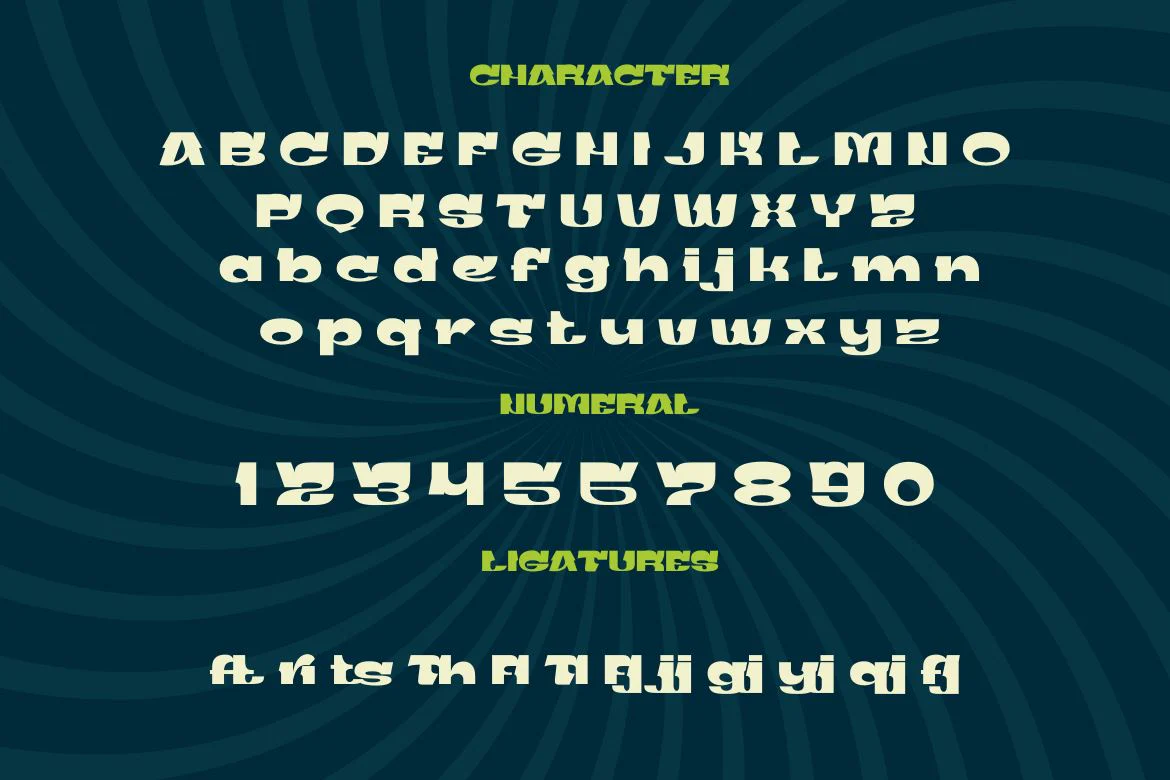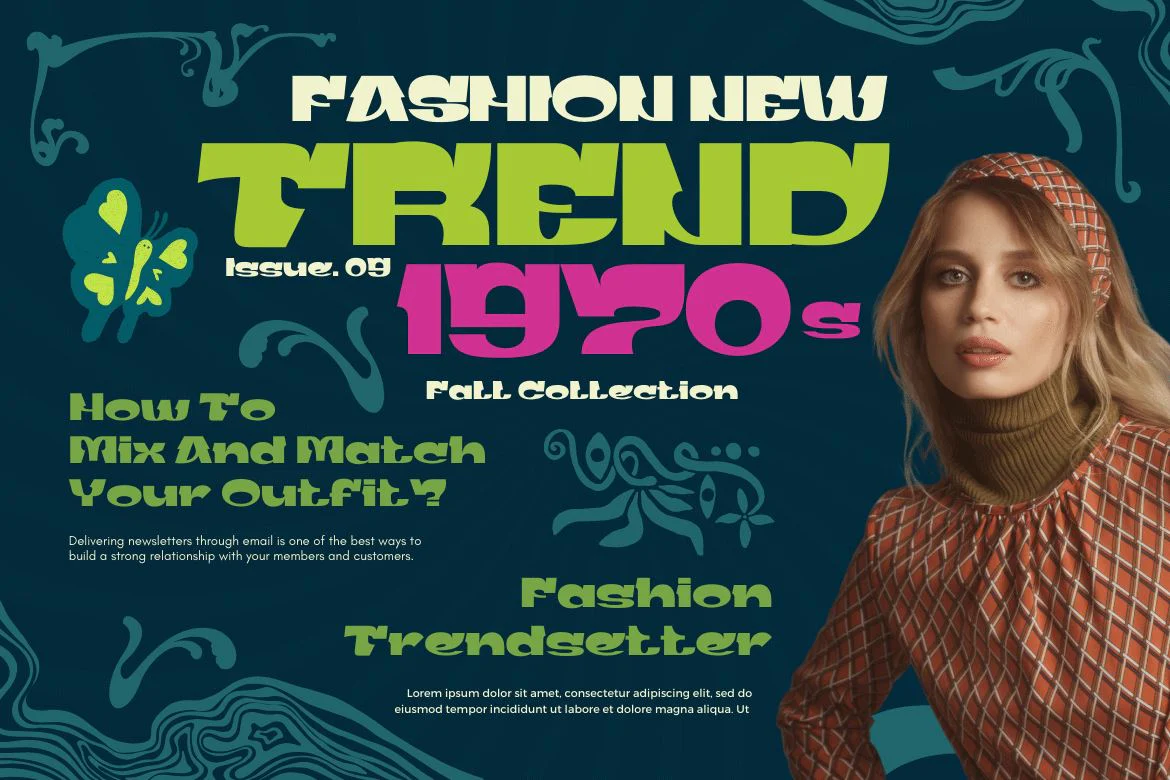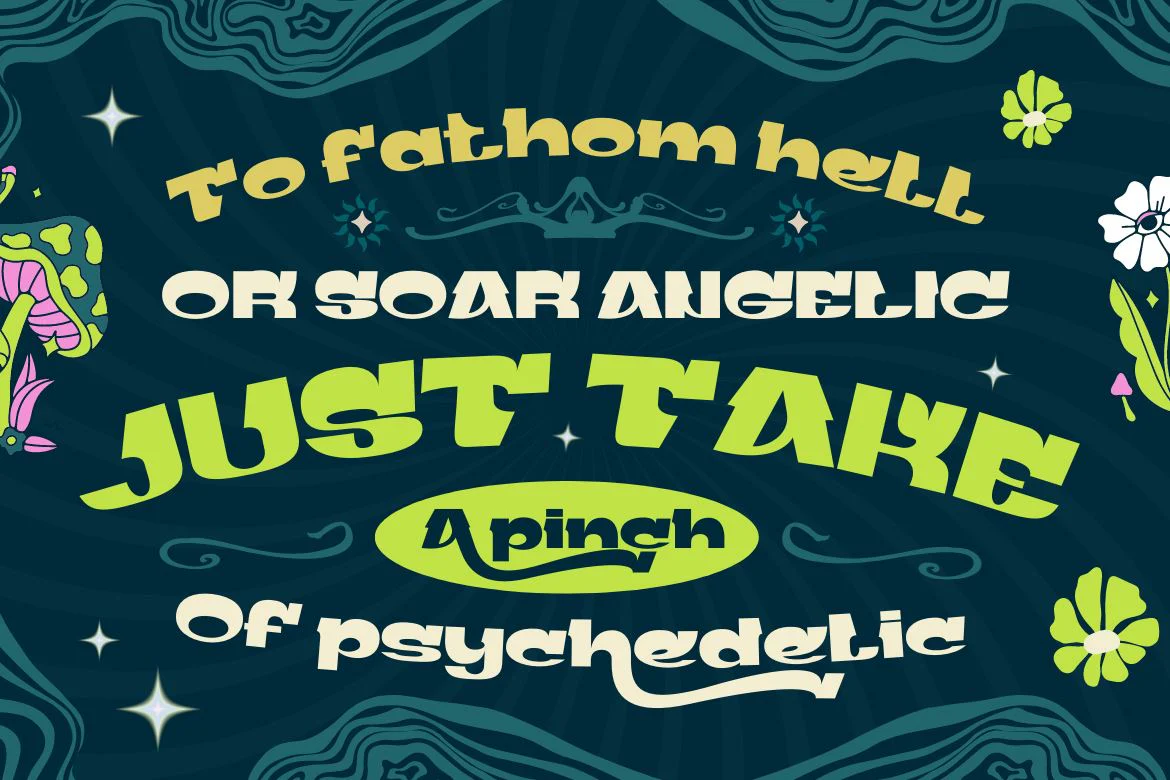
Gerig | Groovy Retro Font
Gerig is a unique, stylish, and fun font that is unlike most other fonts. Having an anatomical shape between thin and thick lines makes it beautiful and visually unique from most other fonts make your project more stunning by adding this font.
It is a font that every designer, writer, and programmer should have in their library. because this font is unique, stylish, and fun. Cool ligature and alternative fonts help add a unique flair to your project. Make the most of your designs by using this font today.